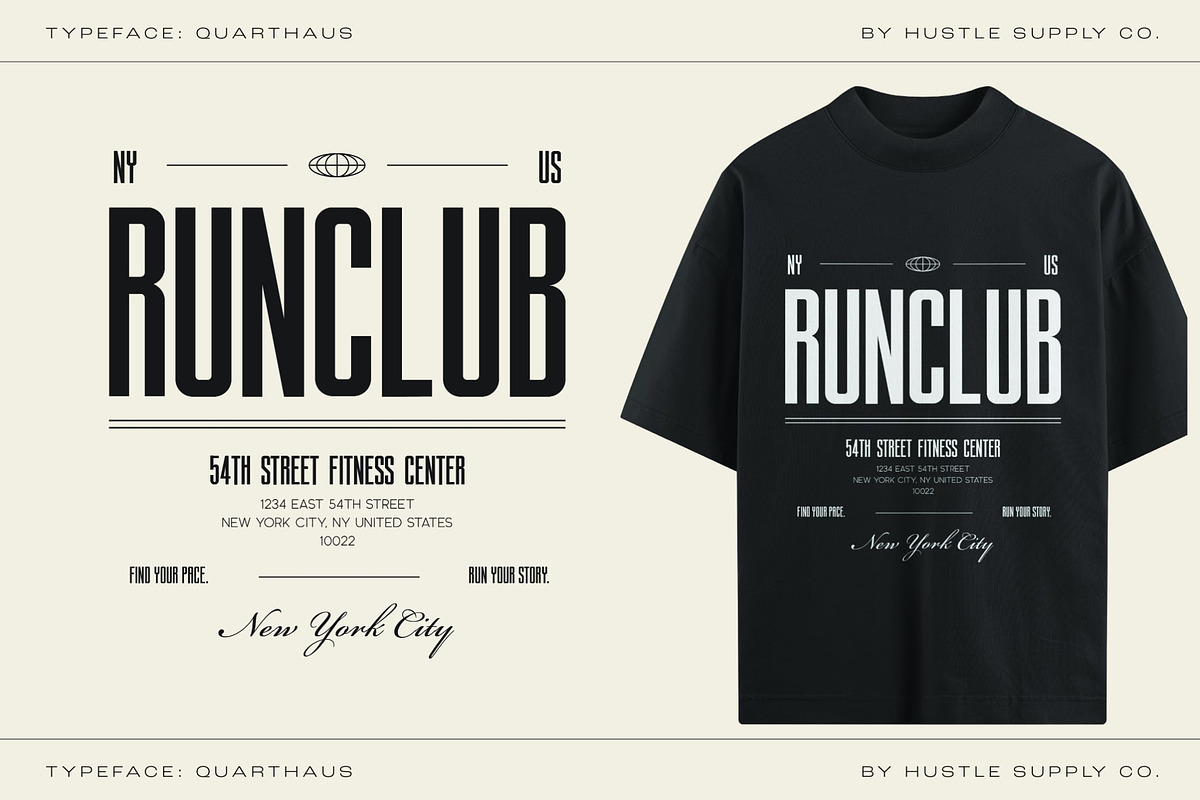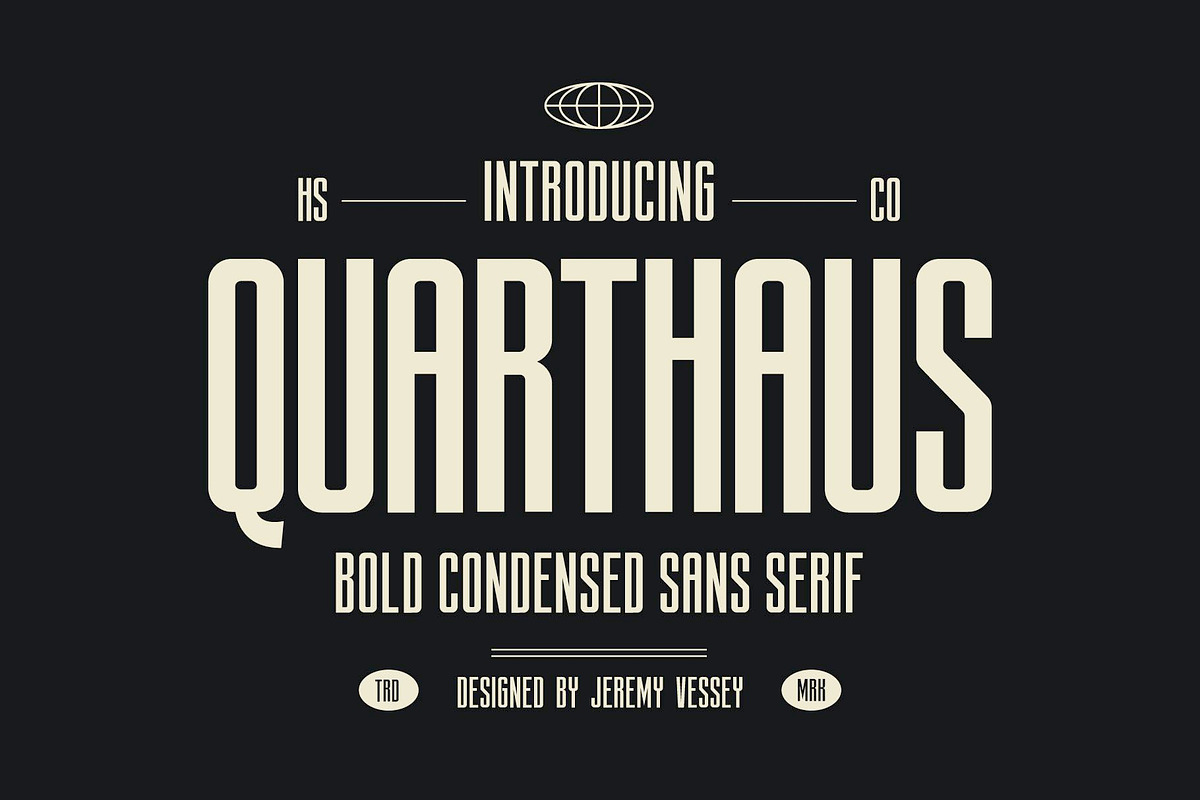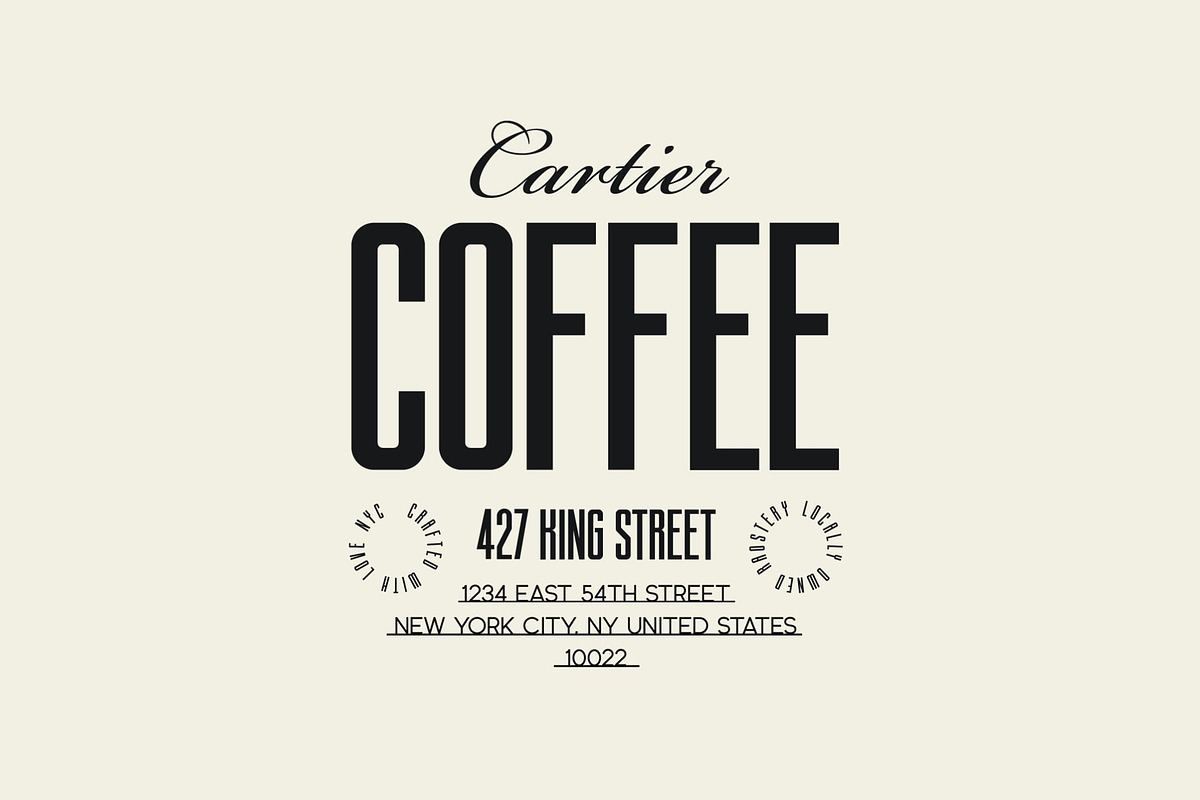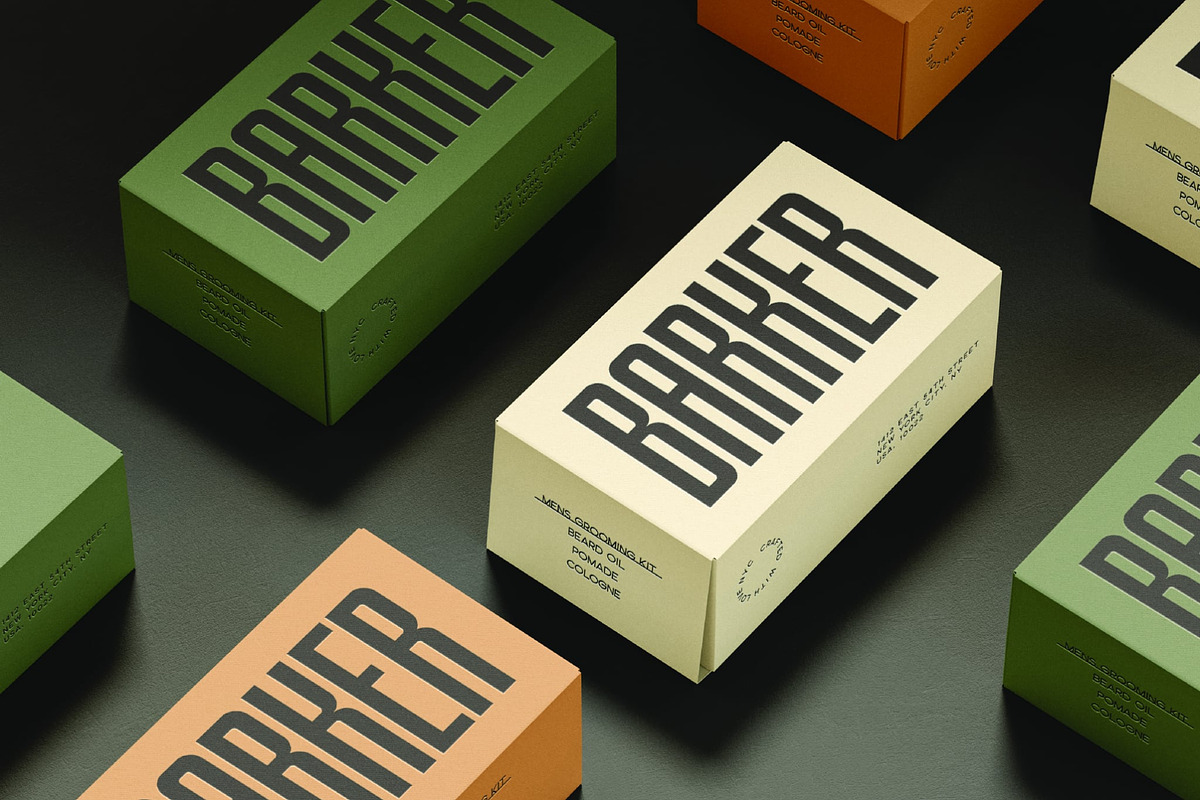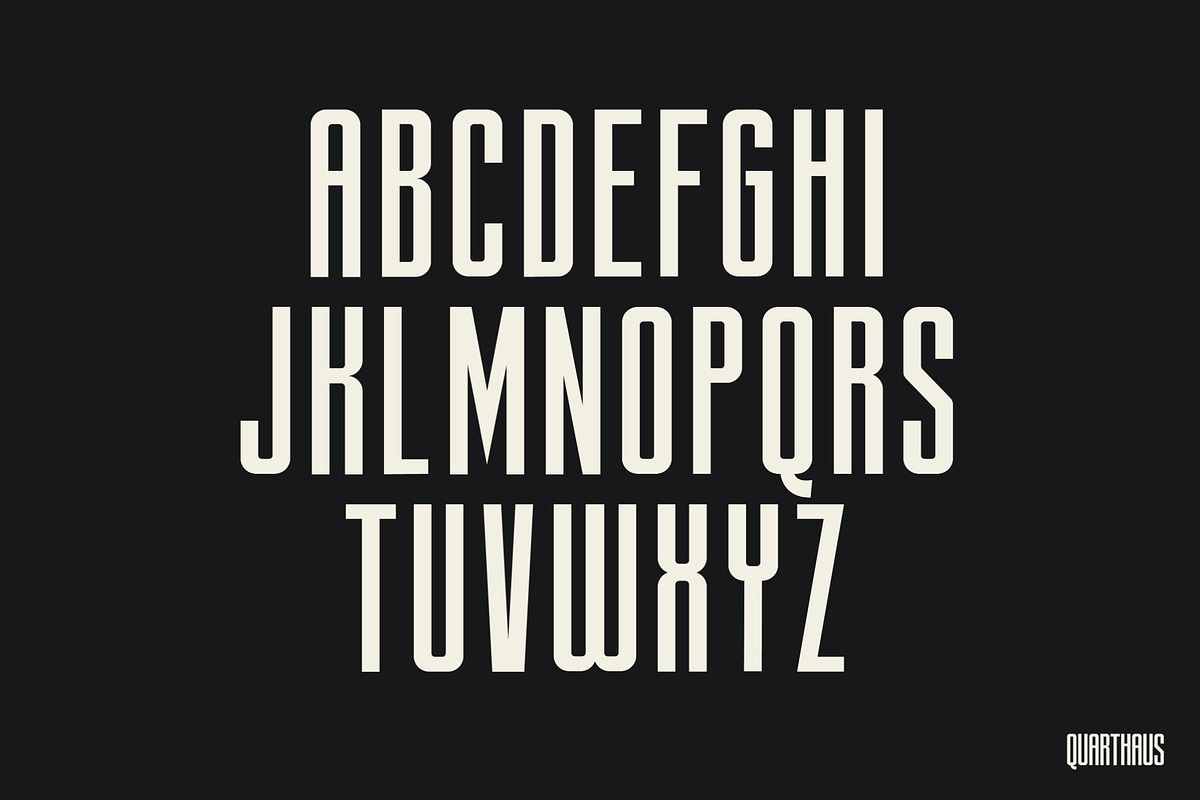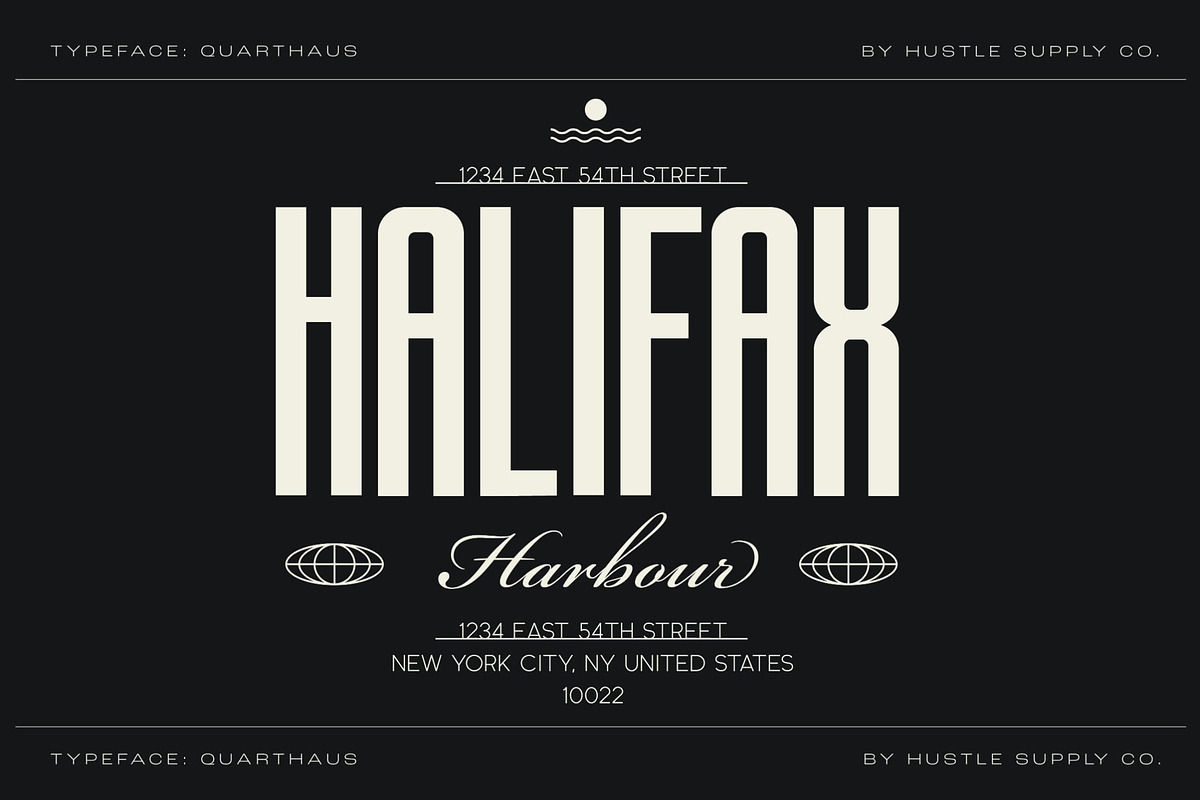
Quarthaus: Bold Condensed Sans Serif
Introducing Quarthaus: Bold Condensed Sans Serif
Quarthaus is a striking, bold condensed sans serif font designed to make a statement. With its clean lines and strong geometric structure, Quarthaus delivers powerful, modern aesthetics while maintaining a timeless appeal. This versatile typeface is perfect for projects that require attention-grabbing headlines, sleek branding, and impactful designs that stand out.
Whether you're designing for fashion, fitness, or any other industry that demands boldness, Quarthaus brings clarity and sophistication to your typography. Available in both condensed and super-condensed styles, it offers flexibility for a wide range of design applications, from posters and logos to product packaging and merchandise.
With Quarthaus, you get the perfect balance of contemporary style and visual weight, making it ideal for high-visibility projects where every word matters.